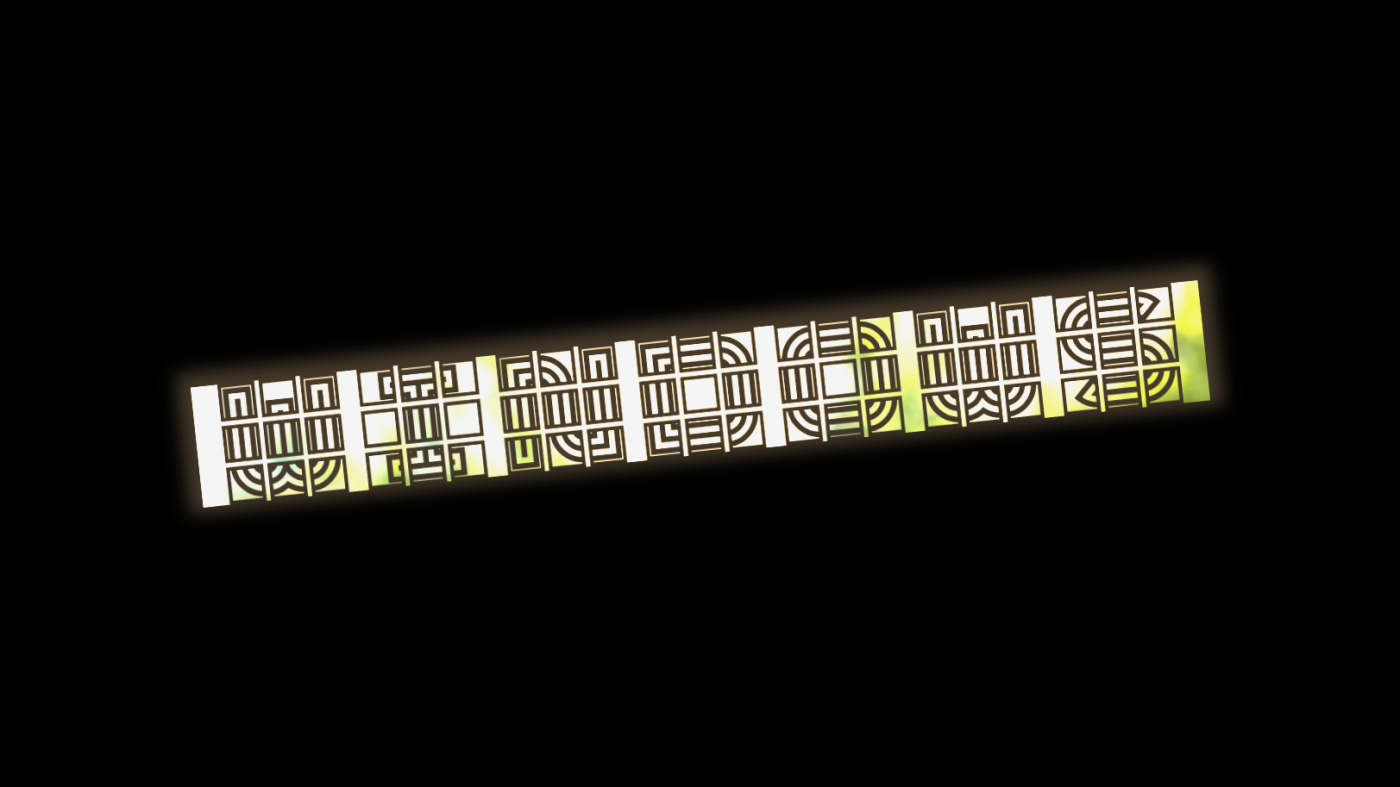
• Unicase font with alternates, otherwise a very obscure addition to the Triline collection.
I'm seeing triline fonts everywhere, so this is my first font using it.
Stupid sample
my first thought after seeing the [G] was the gotham font